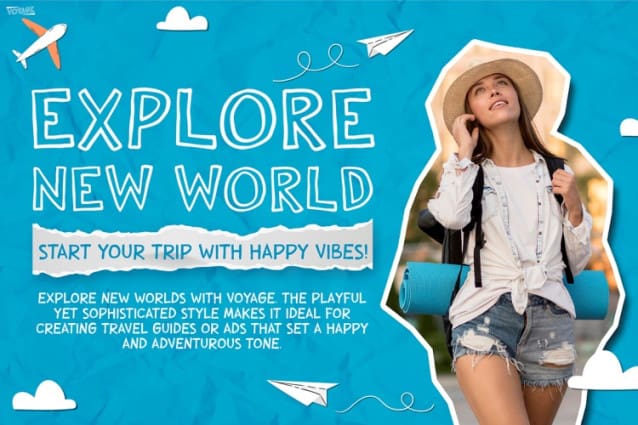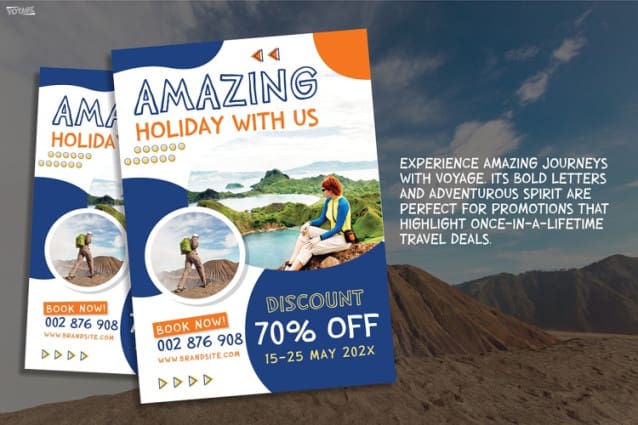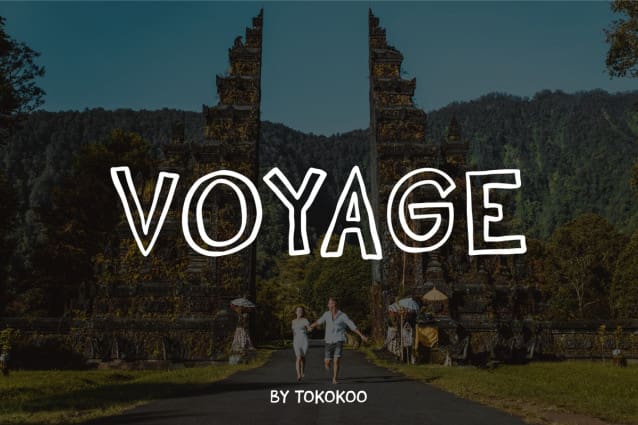
Voyage Playful Font
Voyage Playful Font is a travel-inspired display font designed to capture the spirit of exploration. Its handcrafted outline style adds warmth and approachability. Moreover, with bold yet playful designs, this font ensures maximum visibility and impact. It is perfect for social media, branding, and personal projects. As a result, Voyage blends style and functionality seamlessly.
The font’s design evokes a sense of wanderlust and discovery. Additionally, it balances readability with artistic expression, making it suitable for many applications. Whether used for Instagram posts or printed brochures, Voyage adapts beautifully to various mediums. Furthermore, its compatibility with vibrant color schemes and minimalist layouts adds significant versatility. Therefore, it is a great choice for professionals and hobbyists alike.
This font is not just a design tool—it’s an invitation to tell stories. Its travel-inspired essence stands out in projects celebrating journeys. If you want a font that adds life and an adventurous vibe, Instagram Font Voyage is ideal.